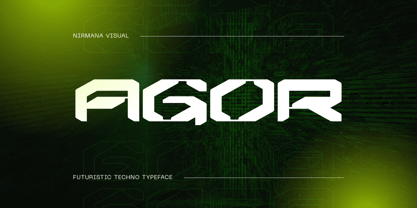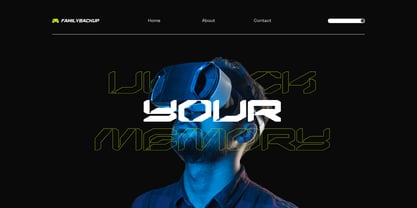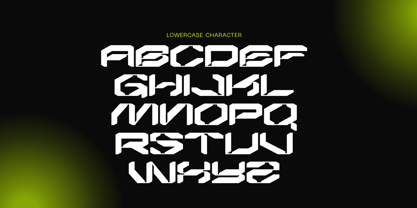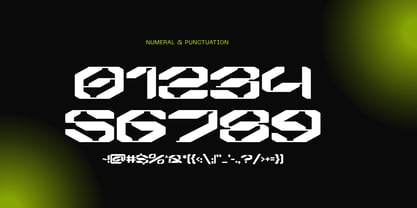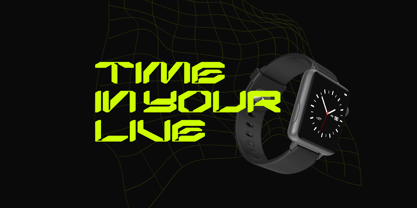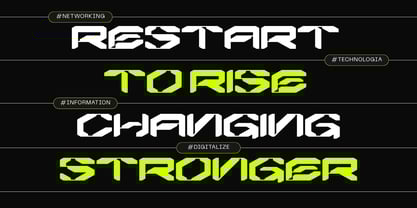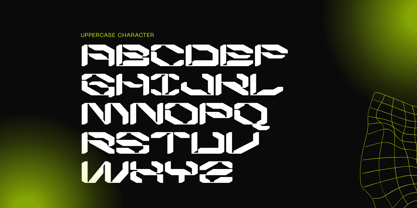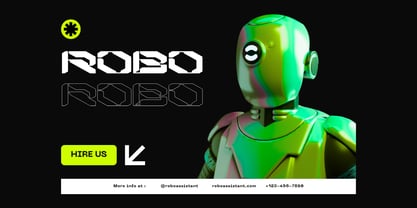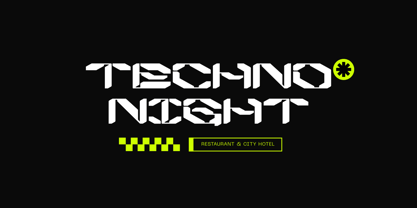
Agor Techno
by Nirmana Visual
The Agor Techno Font Family was designed by Sigit Dwipa and published by Nirmana Visual. Agor Techno contains 2 styles and family package options. More about this family
Agor Techno is a bold, futuristic font designed to elevate your branding and logo projects. With sleek geometric shapes and sharp angles, it captures the essence of modern technology and innovation. Perfect for tech startups, gaming brands, and futuristic designs, Agor Techno delivers a strong visual impact. Available in Regular and Italic styles, this font combines precision and creativity, making your brand stand out with a cutting-edge, professional look.
Designers: Sigit Dwipa
Foundry: Nirmana Visual